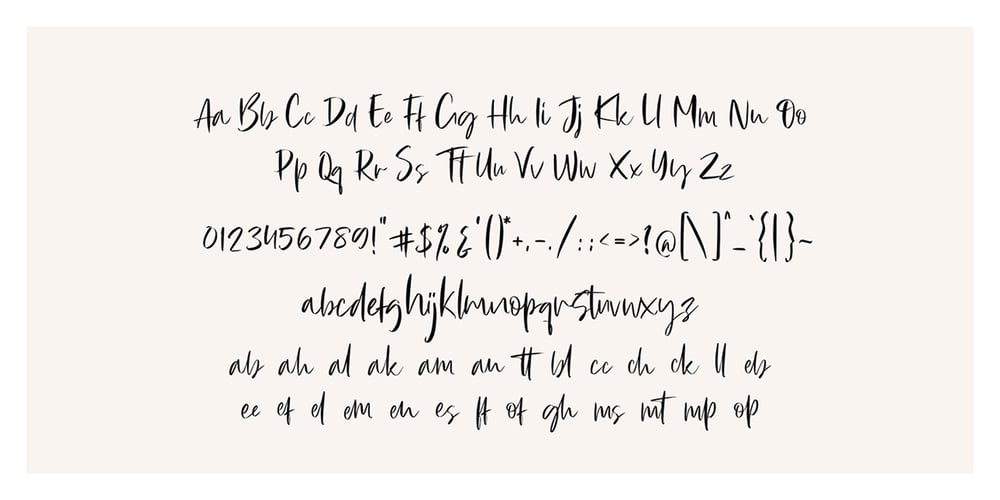
Julie Brious
Julie Brious font
Julie Brious Font Family was designed by Isfani and published by Cotbada Studio. Julie Brious contains 1 styles and family package options. Julie Brious is a handwritten signature typeface. Its classy energetic look makes it the perfect fit for feminine logos, printed quotes, invitation cards, social media headers, product packaging and a lot more!